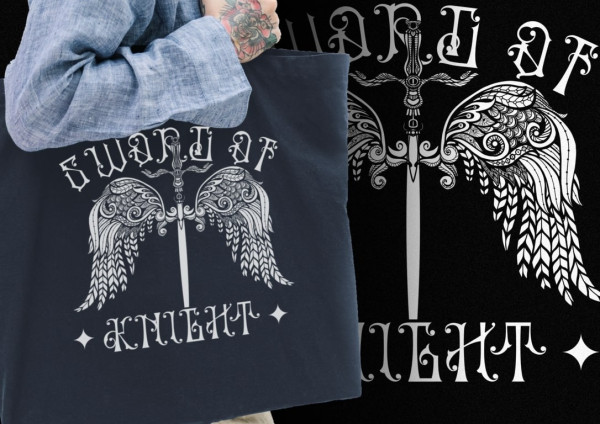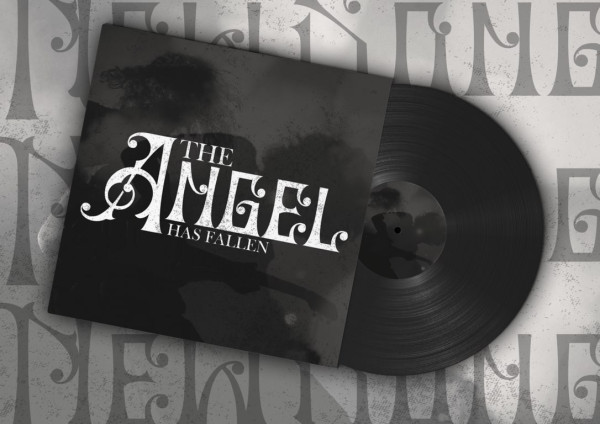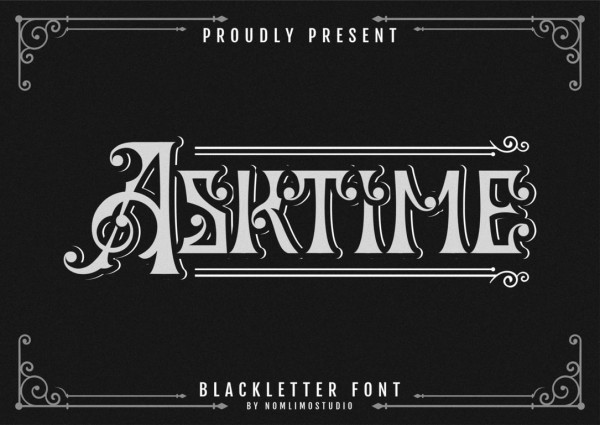
Asktime Font
Asktime Font is a modern Blackletter display font that presents intricate alternate characters with ornate detailing. Initially designed for tattoo studios, beverage labels, apparel companies, and various other applications, Asktime Font surpasses expectations by offering delightful surprises. This font boasts a wealth of alternate characters, captivating flourish elements, and decorative ornaments inspired by carefully selected capital letter forms. Immerse yourself in the captivating world of Bedshire and allow its distinct charm to captivate your design projects.